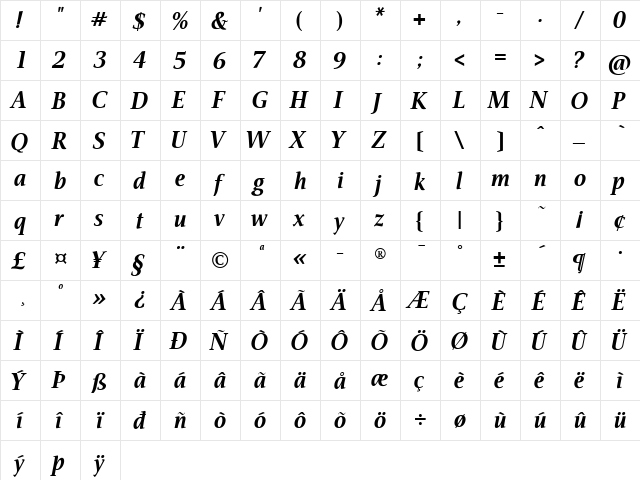
AIVeritas Bold
| Foundry | \ A*I Veritas\ -BoldItalic by Brian Sooy |
Design Context for AIVeritas Typeface
AIVeritas offers clean, dependable letterforms without strong stylistic allegiance, making it a practical choice for designers who need flexibility. The heavy weight commands attention and anchors typographic hierarchies.